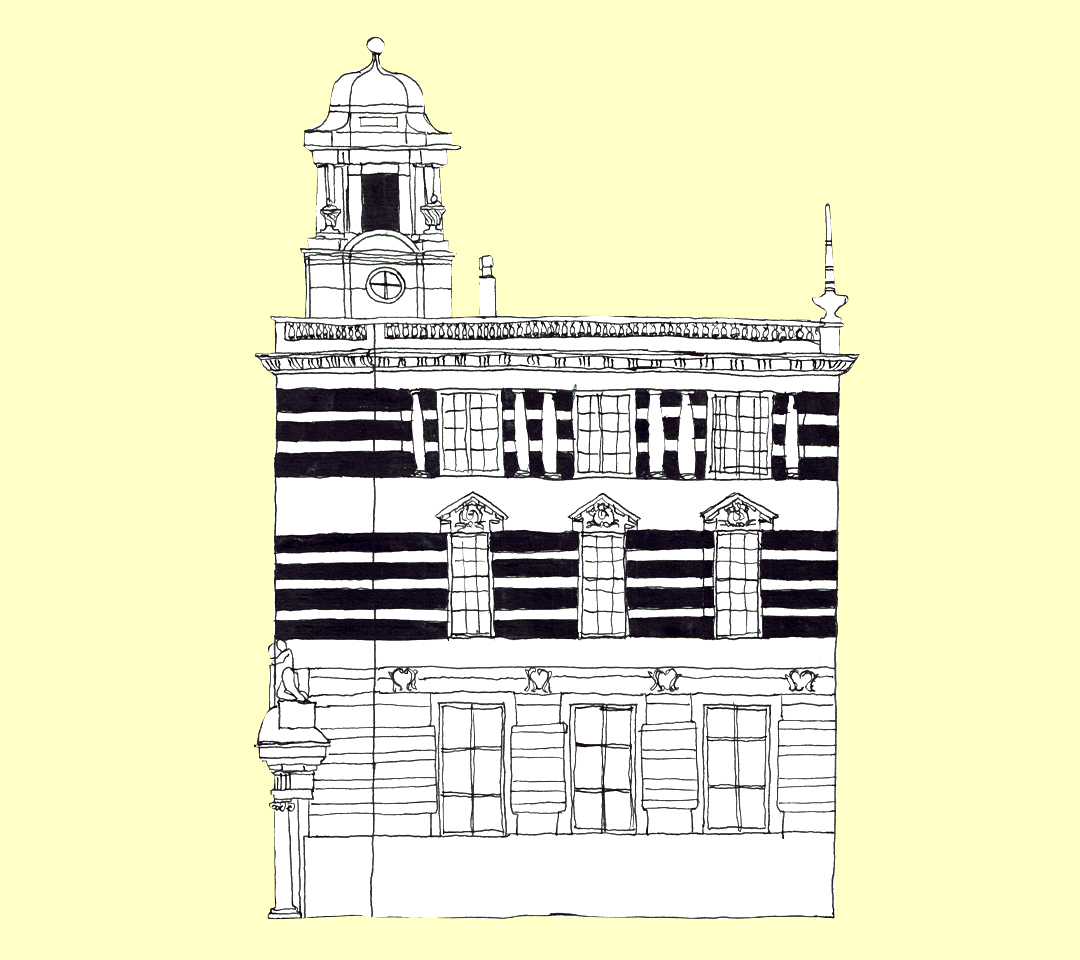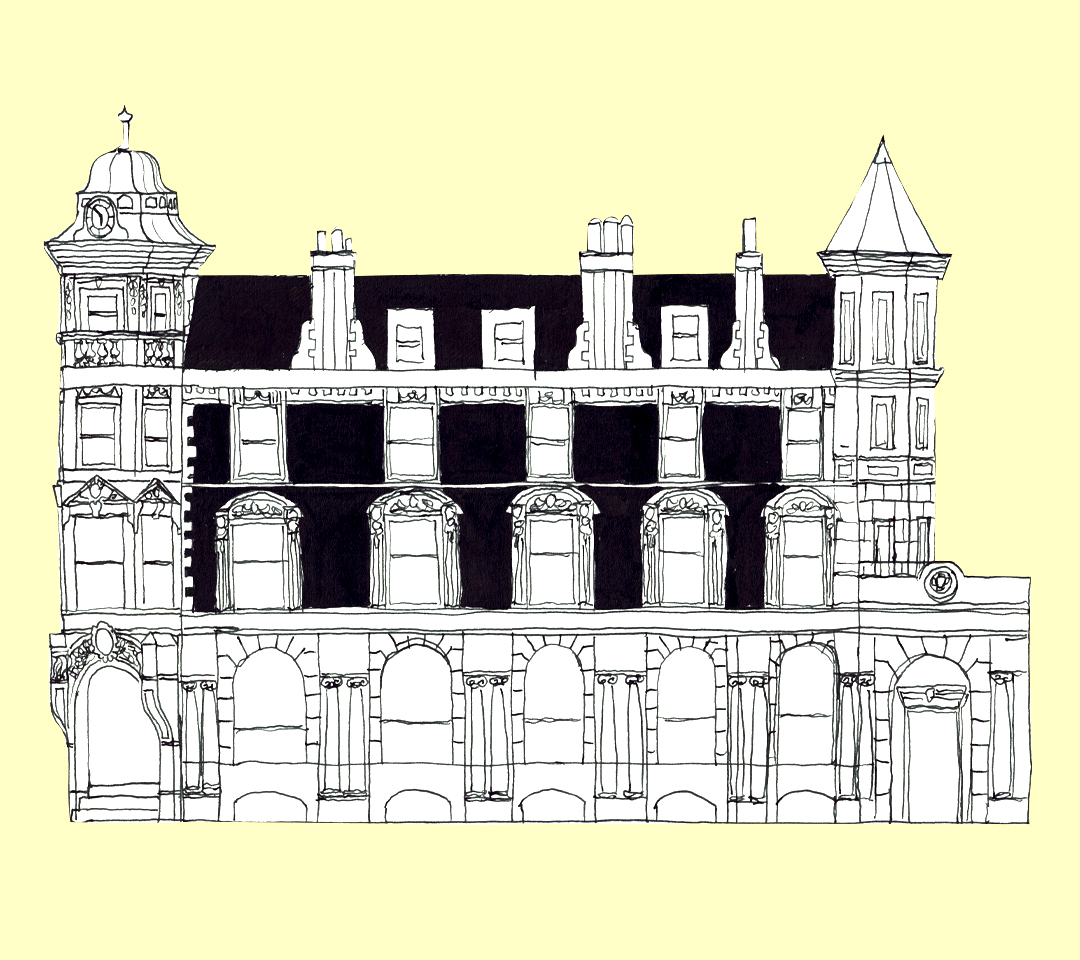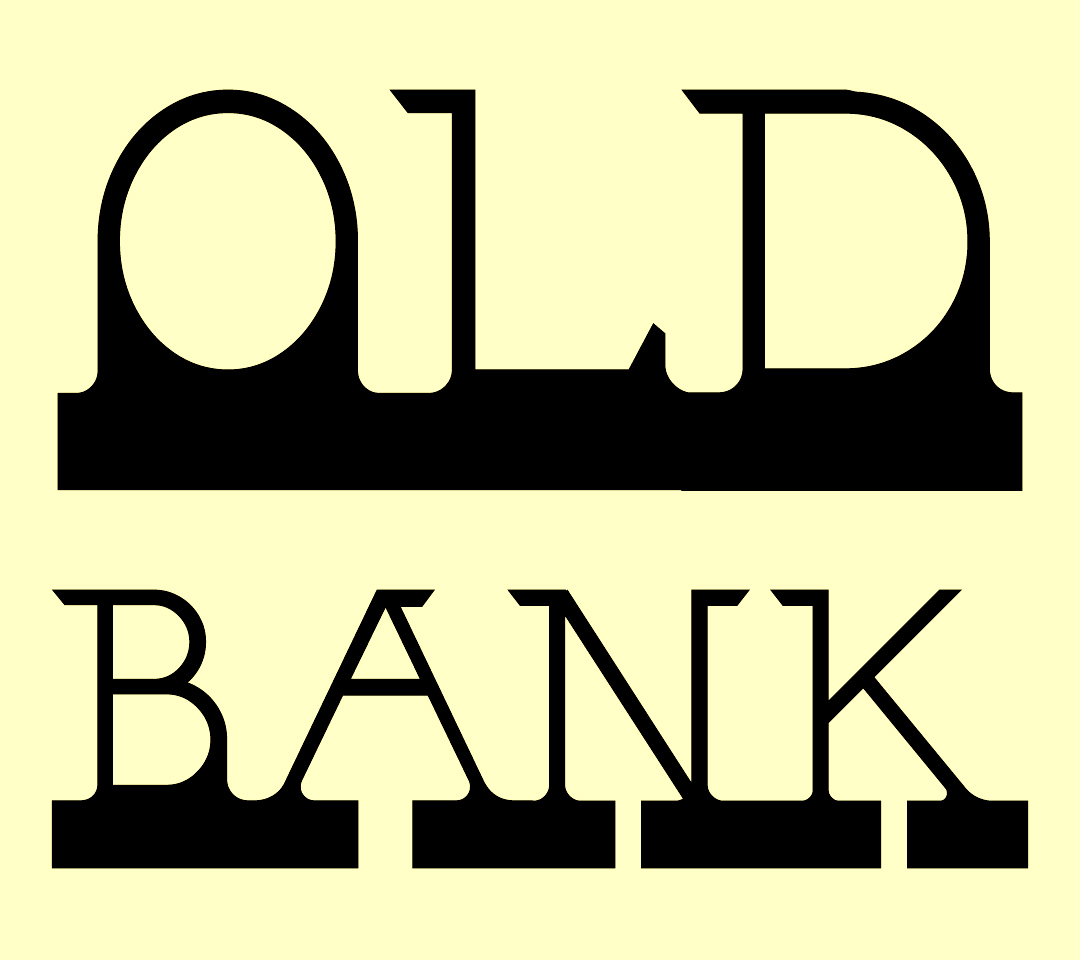
When you walk to Camberwell Green, the first thing you see are two towers facing each other. Old austere Victorian banks, they stood the test of time like Ozymandias' two remaining legs, little left of their former glory but delicately carved ornaments on classical facades, and their high windows hinting at the fortified industrial vaults they still stand on. Old Bank is a typeface that grapples with their history and architecture - standing high and proud on thick slabs and inspired by the classical roman letters that used to adorn them, thick and thin, delicate and blunt.